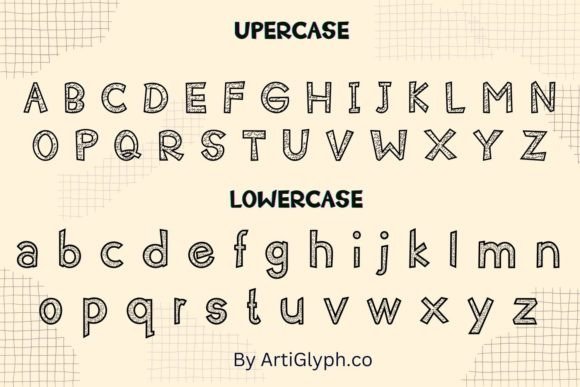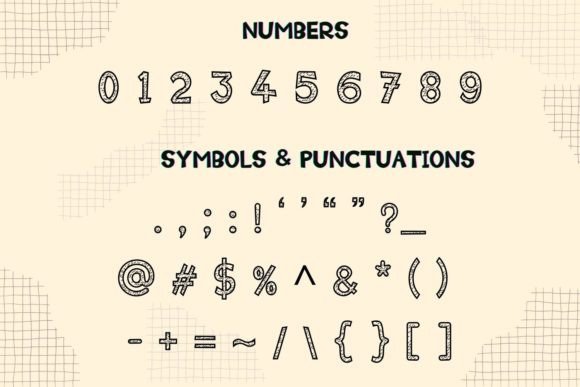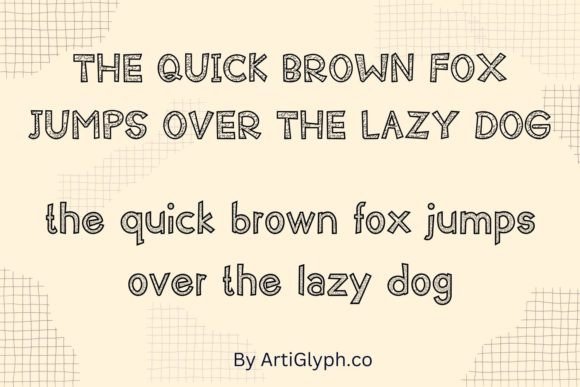
Introduction to Quillsketch Patch Font
QuillSketch patch is a patch style modern cute display font with a fun and quirky personality.
Its irregular and playful letterforms create a sense of whimsy and individuality, making it perfect for designs that require a touch of uniqueness Its natural, handwritten style adds a charming and personal feel to any project.